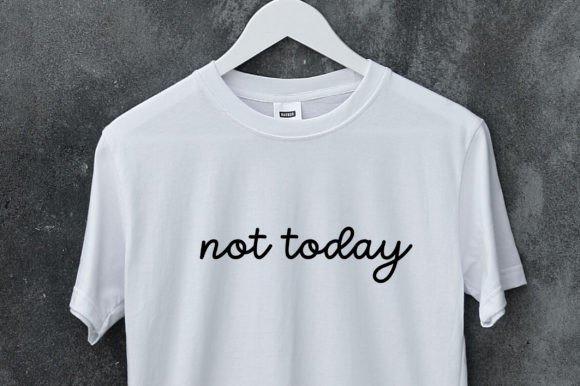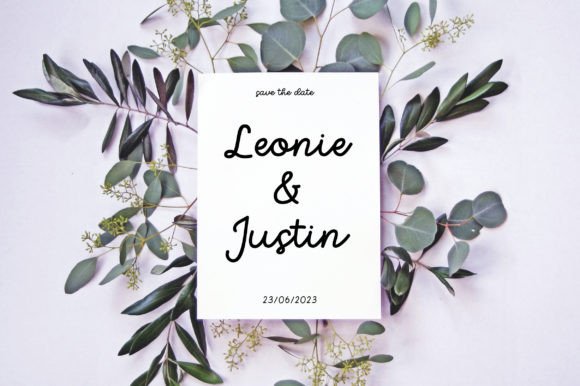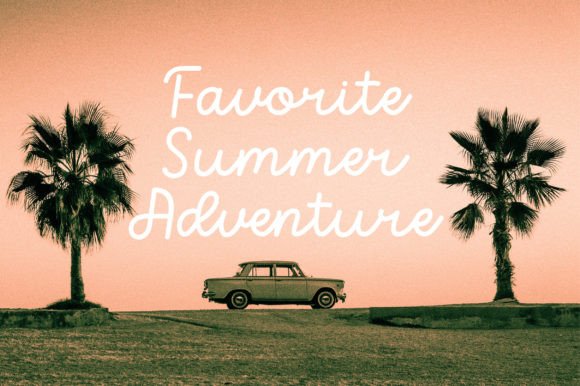
Introduction to Lanterna Font
Have you ever stared at a blank canvas, searching for the perfect font to bring your creative project to life? That’s exactly what happened to many designers when they discovered the Lanterna Font. This stunning monoline cursive font has taken the design world by storm, and for good reason.
With its bold and brave aesthetic, Lanterna Font is the perfect design resource for crafting unique and eye-catching graphics. Whether you’re working on social media graphics, apparel design, product design, or branding, this versatile font is sure to elevate your creative vision. Plus, with its transparent background, you can easily integrate it into any design project, no matter the complexity.
What sets Lanterna Font apart is its high-quality design that’s both free to download and easy to use. As a valuable resource for designers, Lanterna Font is a must-have in any design toolkit. So why settle for ordinary fonts when you can unleash your creativity with the Lanterna Font?
Honest Review: Lanterna Font
I recently stumbled upon the Lanterna Font and I’m excited to share my honest review with you. As a designer, I’m always on the lookout for high-quality design resources to elevate my creative projects.
What works well with the Lanterna Font is its unique and modern aesthetic, perfect for a variety of design applications. The font’s bold and elegant lines make it ideal for use in logos, headings, and other typography-heavy elements. Additionally, the font is available for free download, making it a great resource for designers on a budget.
The font’s transparent background is also a major plus, allowing for seamless integration with any design element. I appreciate how easy it is to work with this font, and it’s quickly become a go-to choice for my projects.
What I Like:
- Unique and modern aesthetic
- Bold and elegant lines
What I Don’t Like:
- Only available in a single weight
- Limited character set
Overall, I’m impressed with the Lanterna Font and would highly recommend it to designers looking for a high-quality, free design resource. While it may have some limitations, the font’s unique aesthetic and transparent background make it a valuable addition to any design toolkit.
Lanterna Font
The Lanterna Font is a high-quality, free design resource perfect for any creative project. With its transparent background, it’s easy to incorporate into your designs without distractions.
Getting the Most Out of Lanterna Font
To get the most out of the Lanterna Font, use it in combination with other design elements, such as graphics and images, to create a cohesive and visually appealing design.
The Lanterna Font is perfect for a variety of creative projects, including logos, brochures, and social media graphics. Its high-quality design and transparent background make it a versatile resource for designers of all levels.